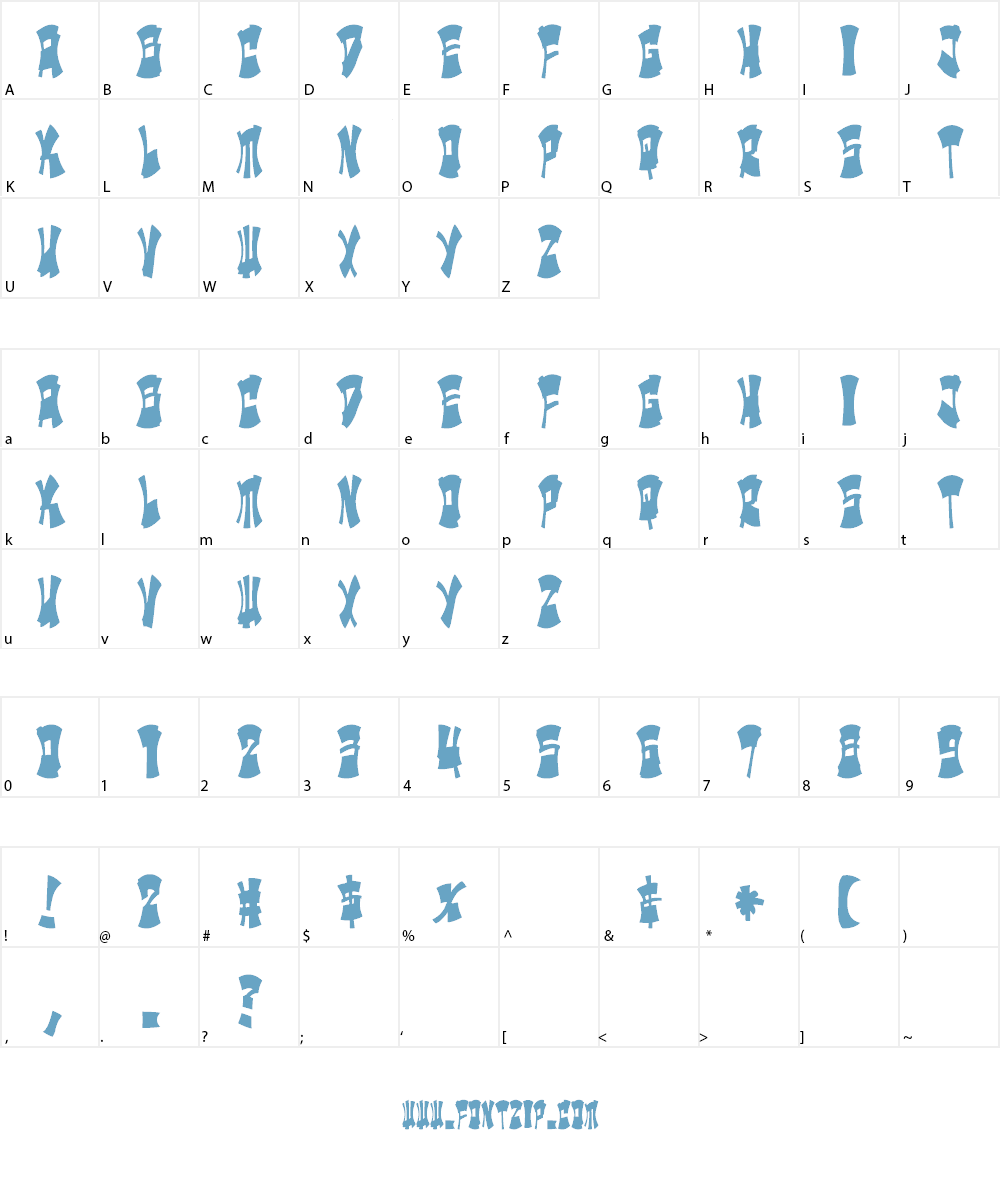
This font got its name by the technique used to make the font. After designing the block lettering I placed a squeeze curve to all the letters, thus the name, "FATBOY SQUEEZE".